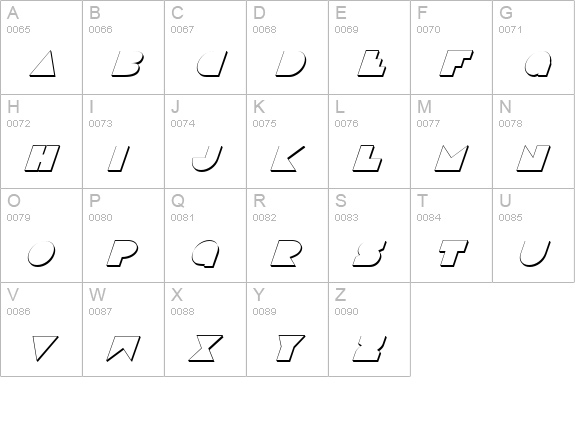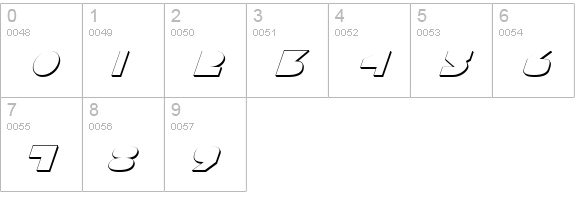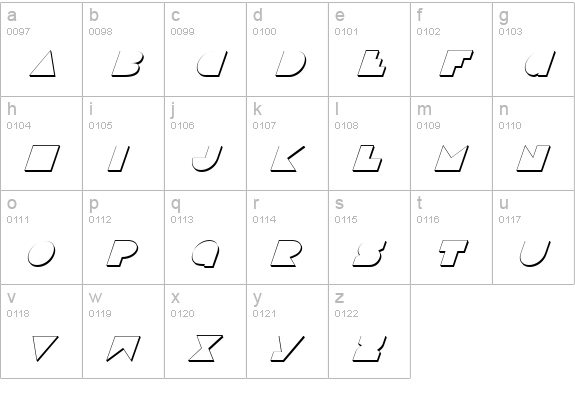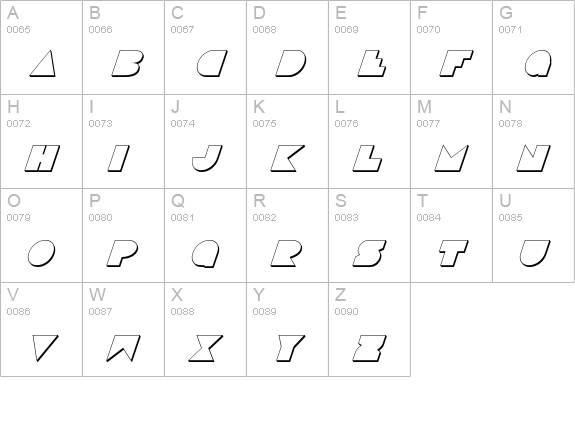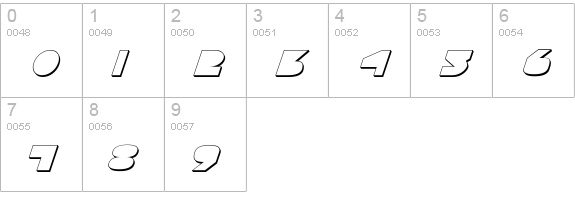
Disco Deck Shadow Italic is a distinctive, italic variant in the Disco typeface family \xE2\x80\x94 well suited to design and typography projects.
Introducing Disco Deck Shadow Italic font - a bold and dynamic typeface designed to make a statement. With its sleek and stylish look, this font is perfect for adding a touch of retro flair to your designs. The italic style of Disco Deck Shadow adds a sense of movement and energy, making it ideal for projects that need a bit of pizzazz. Not only does Disco Deck Shadow Italic font exude coolness, but it is also versatile and easy to use. Whether you're creating posters, logos, or social media graphics, this font will bring a touch of disco glamour to your work. And the best part? Disco Deck Shadow Italic font is completely free to download at FontsMarket.com. So why wait? Add a touch of retro charm to your designs today with Disco Deck Shadow Italic font.